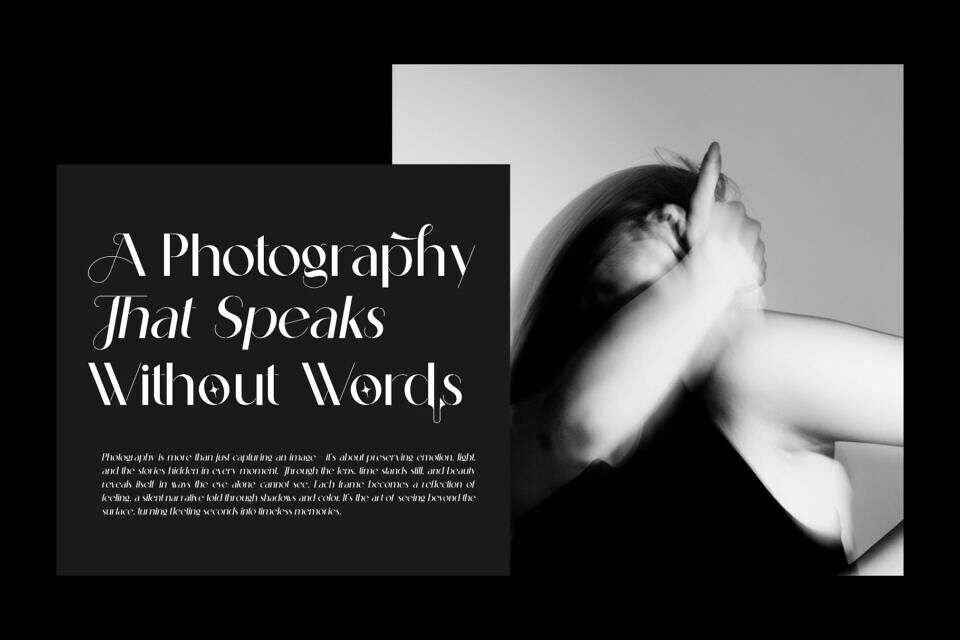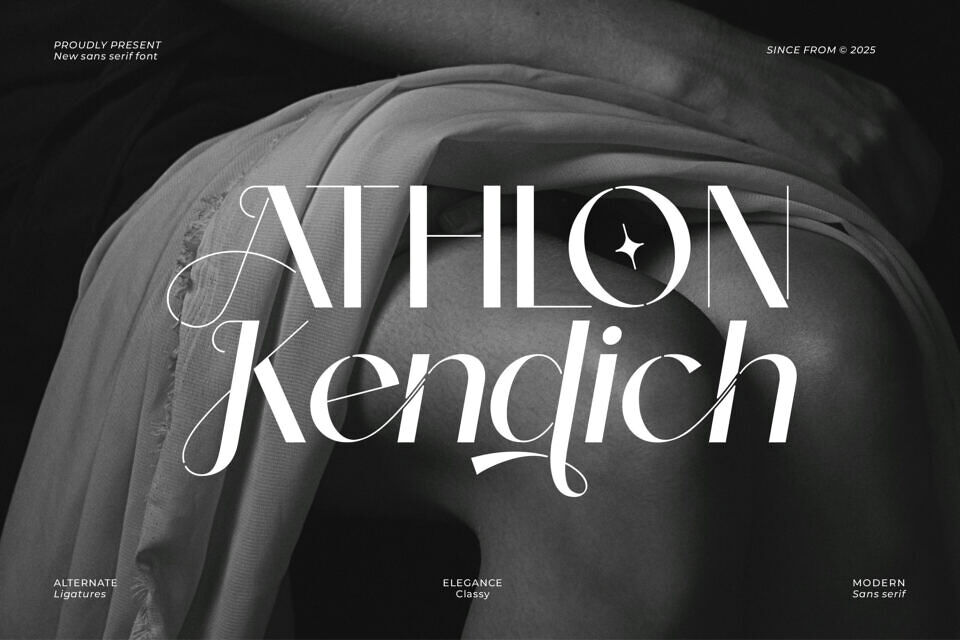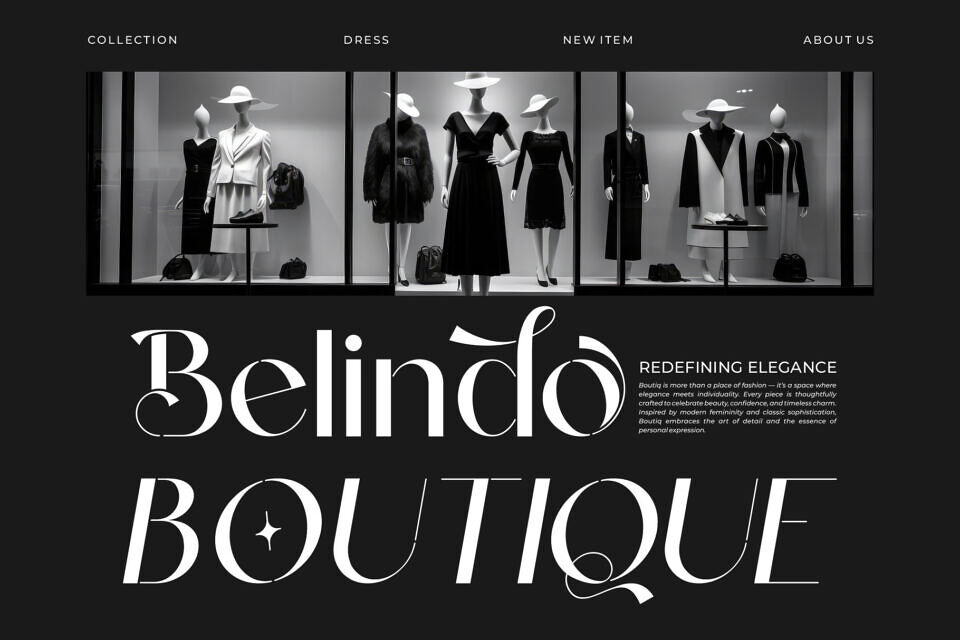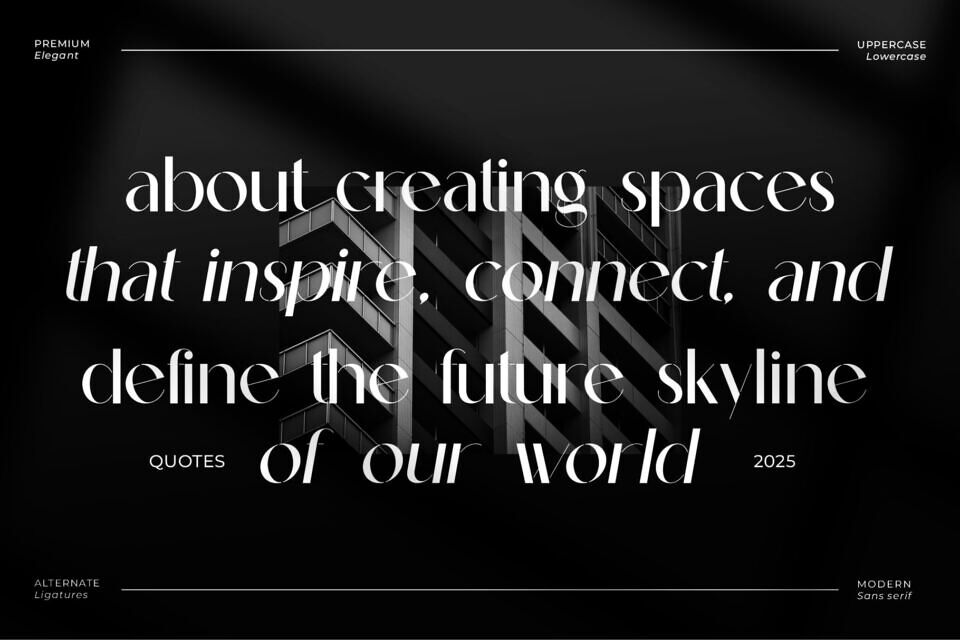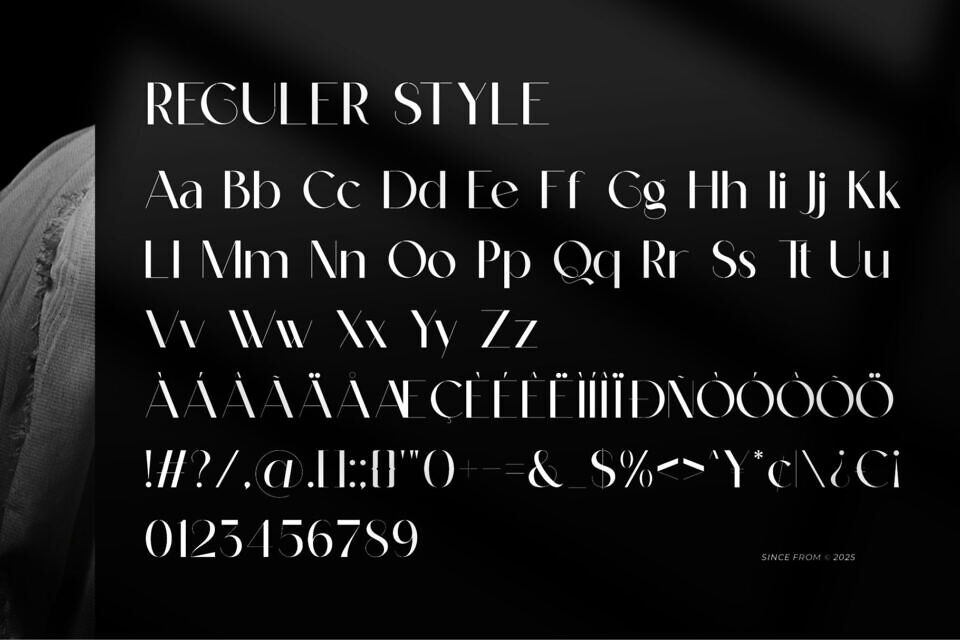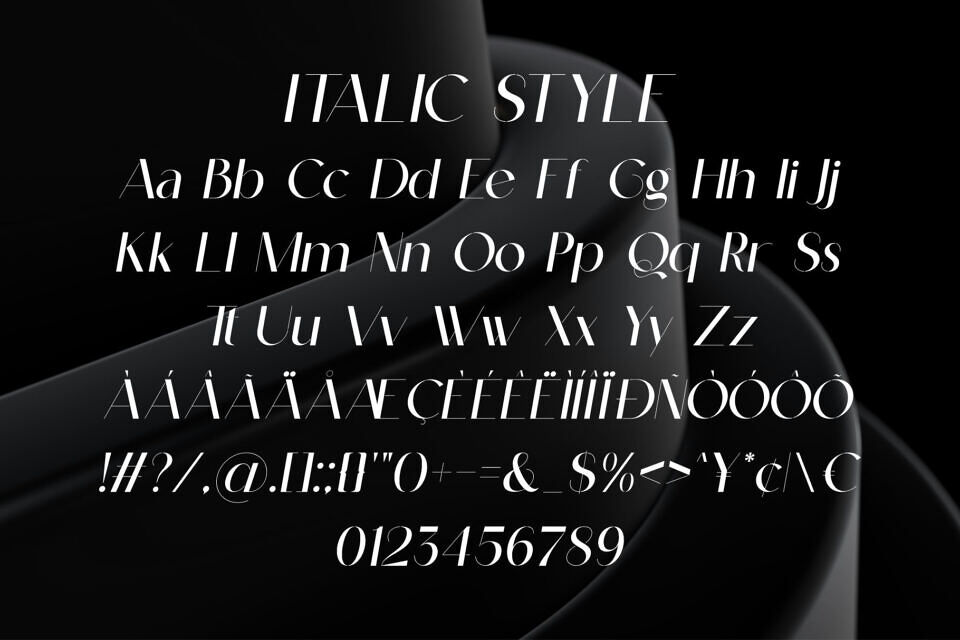
Athlon Kendich Font
Athlon Kendich is a refined sans serif font with a smooth, elegant feel. Its regular and italic styles make it versatile for various designs, including invitations, logos, and titles. The font’s subtle sophistication and stylish details render it perfect for projects requiring a touch of class, from business cards to brand names and movie titles.